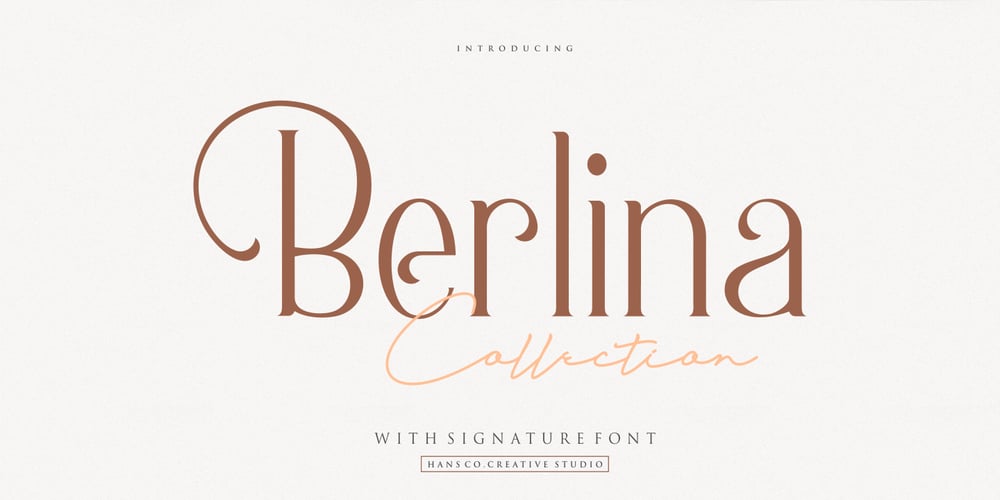
Berlina Font Family was designed by Burhan Afif and published by HansCo. Berlina contains 2 styles and family package options. Berlina is an elegant serif and script set designed with full and high accuracy to create a classy font style. It perfectly represents luxurious yet elegant style in a modern and minimalist way. Furthermore it comes with a signature style font, perfect for elegant logo design, packaging or invitation cards. Enjoy!